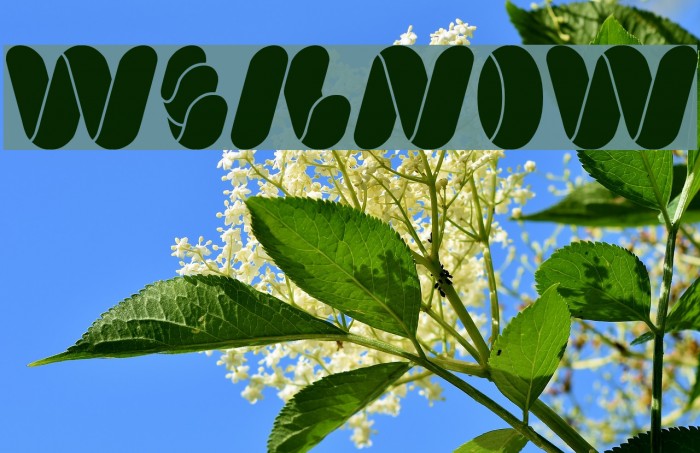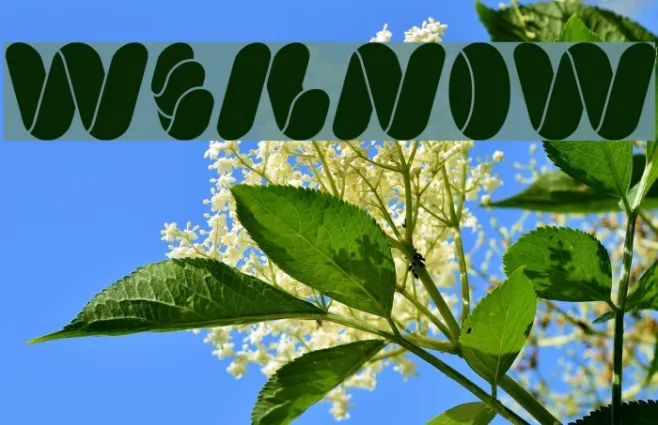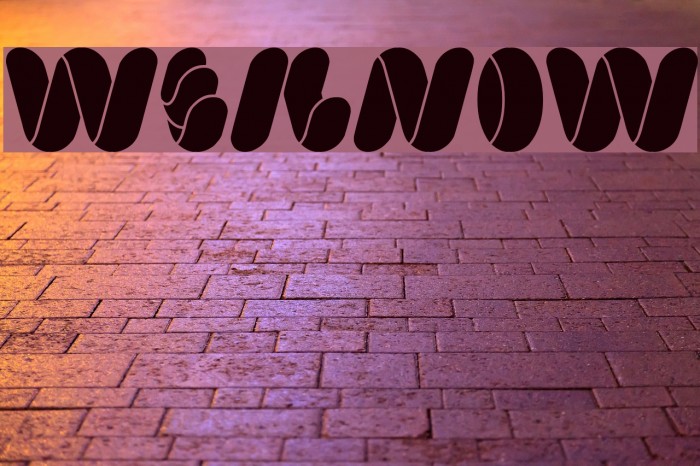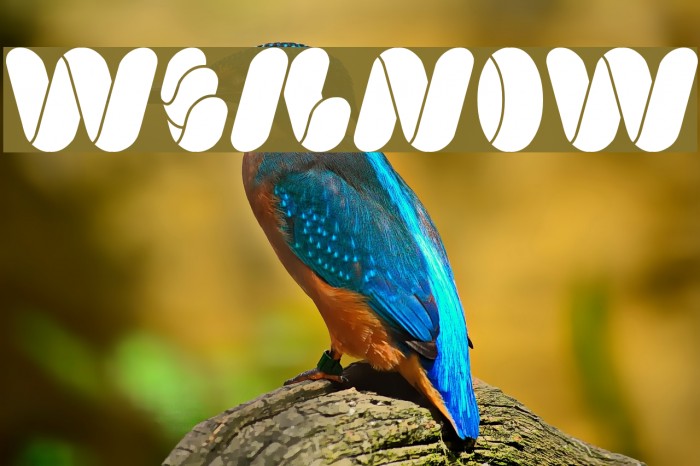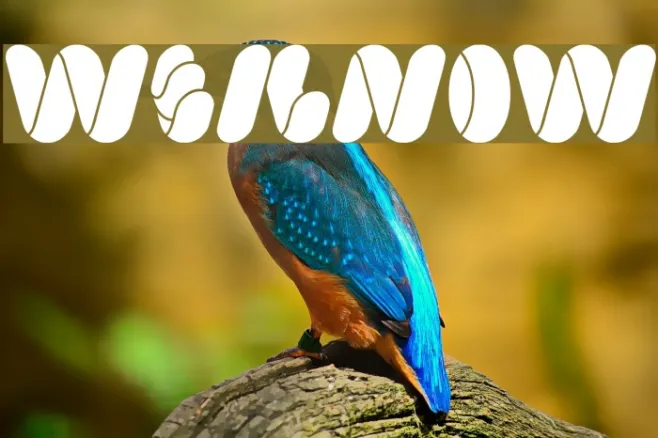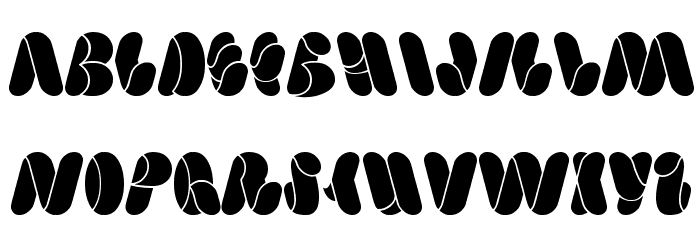
weknow Font
weknow Description
This font features a bold and playful design with a unique, rounded style. Each character is composed of thick, overlapping strokes that create a sense of movement and rhythm. The letters are wide and have a distinct, bubble-like appearance, making them stand out prominently. This font is highly decorative and captures attention with its unconventional and artistic flair. The overall look is modern and creative, perfect for projects that require a fun and engaging visual element.
| Width | Expanded |
| Overall Style | Modern, Decorative |
| Proposed Projects | Ideal for children's books, playful branding, creative posters, and eye-catching headlines. |